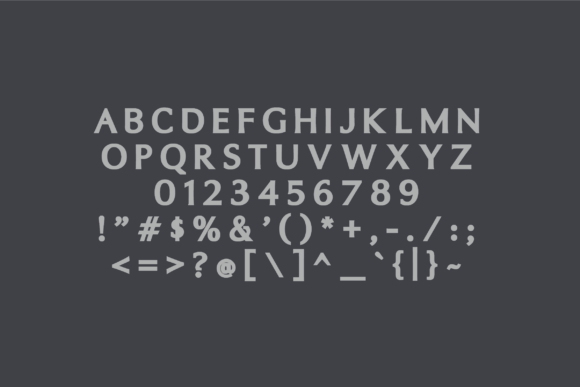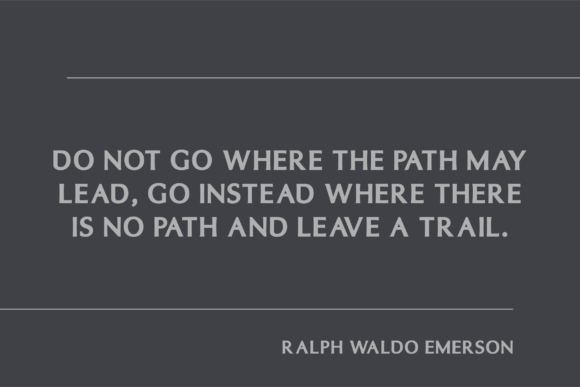
Introduction to Moduluxe Font
Imagine the moment when you’re brainstorming a new project and everything clicks into place – the colors, the typography, the overall aesthetic. You’re on the hunt for that perfect font to elevate your design and make it truly unforgettable. That’s where the Moduluxe Font comes in – a game-changing, high-quality typeface designed to bring a touch of bold minimalism to your creative project.
| 👤 Author | A Christie |
As a designer, you know the importance of having a reliable design resource at your fingertips. That’s why the Moduluxe Font is a valuable addition to your toolkit. With its clean, all-caps sans-serif design, it’s perfect for logos, headlines, posters, and digital content that demands clarity and style. Plus, it’s incredibly easy to use, making it a great choice for designers of all levels.
Whether you’re working on a branding project, tech startup, or fashion campaign, the Moduluxe Font is the perfect choice to add a professional touch without sacrificing visual impact. And the best part? It’s ready to download and use, complete with standard Latin characters, punctuation, and numerals – all on a transparent background, ready to be layered into your design.
Key Features of Moduluxe Font
- Unique modular design with a transparent background, allowing for endless customization options
- Designed to be highly versatile, with a wide range of applications, from logos to typography
Honest Review: Moduluxe Font
As a designer, I’m always on the lookout for high-quality design resources to elevate my creative projects. Recently, I had the chance to try out the Moduluxe Font, and I must say it’s been a game-changer. The free download made it an instant winner in my book, and the transparent background gives me endless possibilities for customization.
Here are some of the things that work well with the Moduluxe Font:
- ✨ Unique and modern aesthetic that sets my designs apart
- ✨ Highly customizable with a transparent background
- ✨ Easy to use and integrate into any project
- ⚠️ Limited character set, which can be a problem for longer texts
- ⚠️ Not ideal for print materials due to the digital nature of the font
Overall, I’m really impressed with the Moduluxe Font. While it may have some limitations, its unique style and high-quality design make it a valuable addition to my design resource arsenal. If you’re looking for a creative way to add some flair to your next project, I highly recommend giving it a try.
The Moduluxe Font is commonly used in branding, graphic design, and digital marketing projects. Its clean and modern design makes it perfect for creating visually appealing logos, icons, and graphics. You can also use the font in presentations, reports, and other documents where a high-quality font is required.
To get the most out of the Moduluxe Font, experiment with different font sizes, colors, and styles. You can also use the font in combination with other design elements to create a unique and visually appealing design. With its transparent background and clean design, the Moduluxe Font is a great choice for designers looking to add a touch of elegance to their projects.